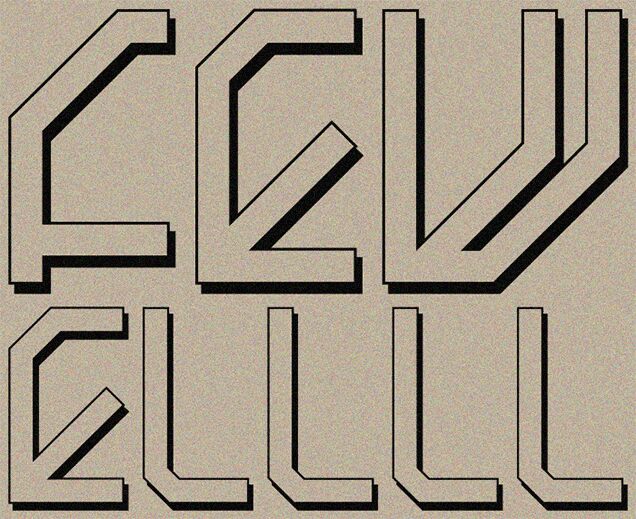
Fewell font family is a techno typeface by Vladimir Nikolic focusing on typography aesthetics inspired by symmetry and precision. This font family comprises fonts one of which is shadowed to expand variety and increase potential applications. The fonts maintain a bold presence thanks to angular shapes and geometric construction, with the addition of dimensional letters that bring them to life. Fewell seamlessly combines architectural structure with functional design in a manner that feels both retro and futuristic at the same time.
As a structured typeface, Fewell clearly constructs your titles and large-sized display texts for posters, banners, album covers, brochures, T-shirts, labels, business cards, catalogs, etc. appear professionally and organized. Fewell can also complete your designs as a font used in the body of the text especially in magazines or digital platforms. That same professionalism can be brought to your user interfaces and user experiences designs to the enjoyment of you and your users.
Based on "Techstep" by Martin Fewell, this font offers a modern and sleek design perfect for various projects. It is 100% free for personal and commercial use, making it an ideal choice for designers seeking high-quality typography without cost.